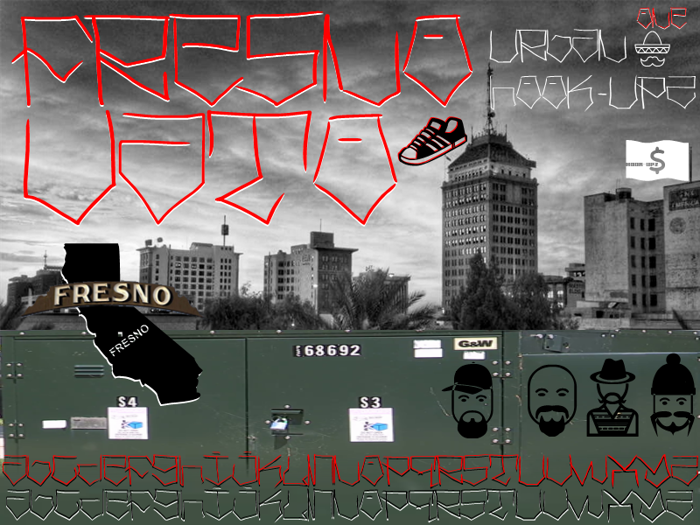
Fresno Vato Font
This is a, "Fresno Vato Style", Influenced by the Mexicano Tag style of Central Califa. Brought to you by Creator Urban Hook-Upz, just another Vato From Fresno, Hookin You Up Homie!